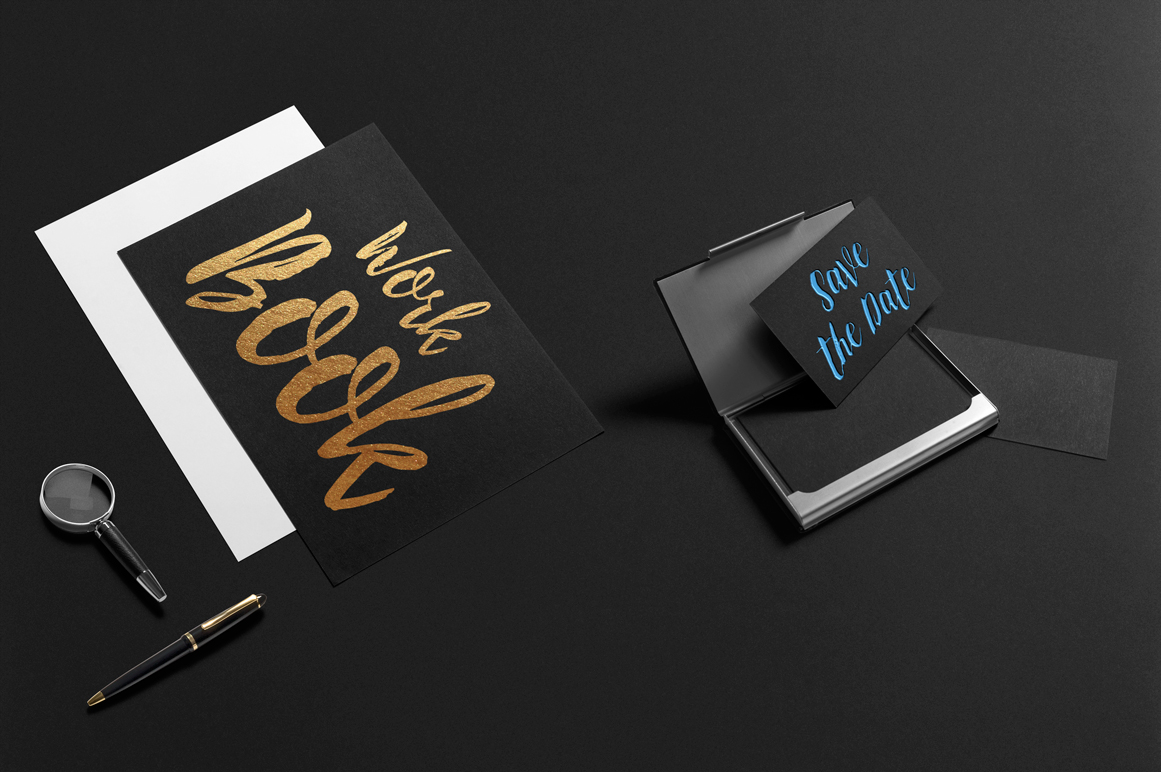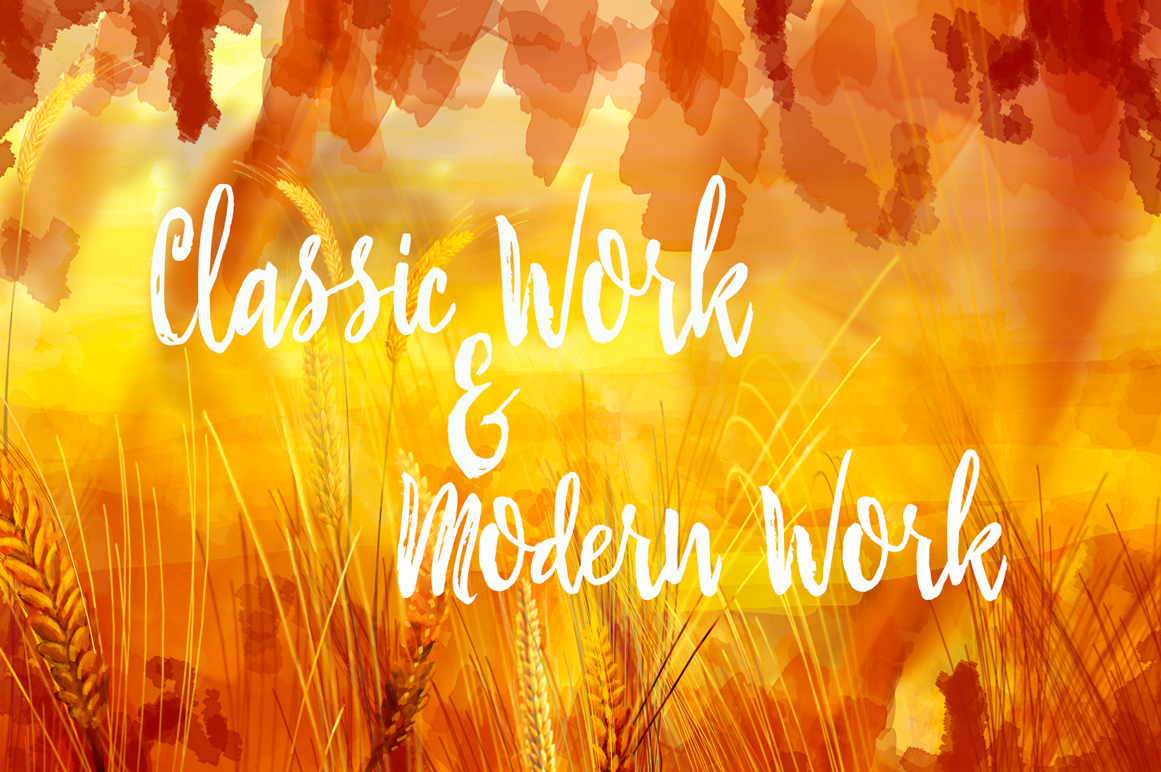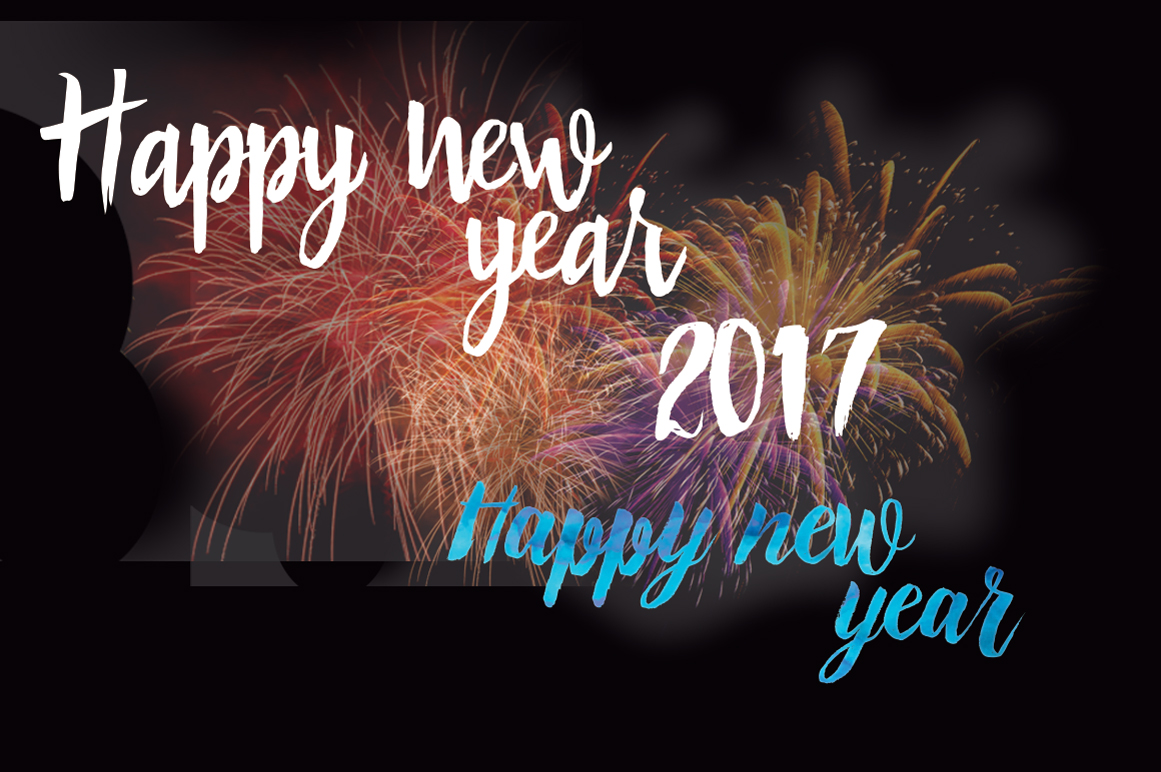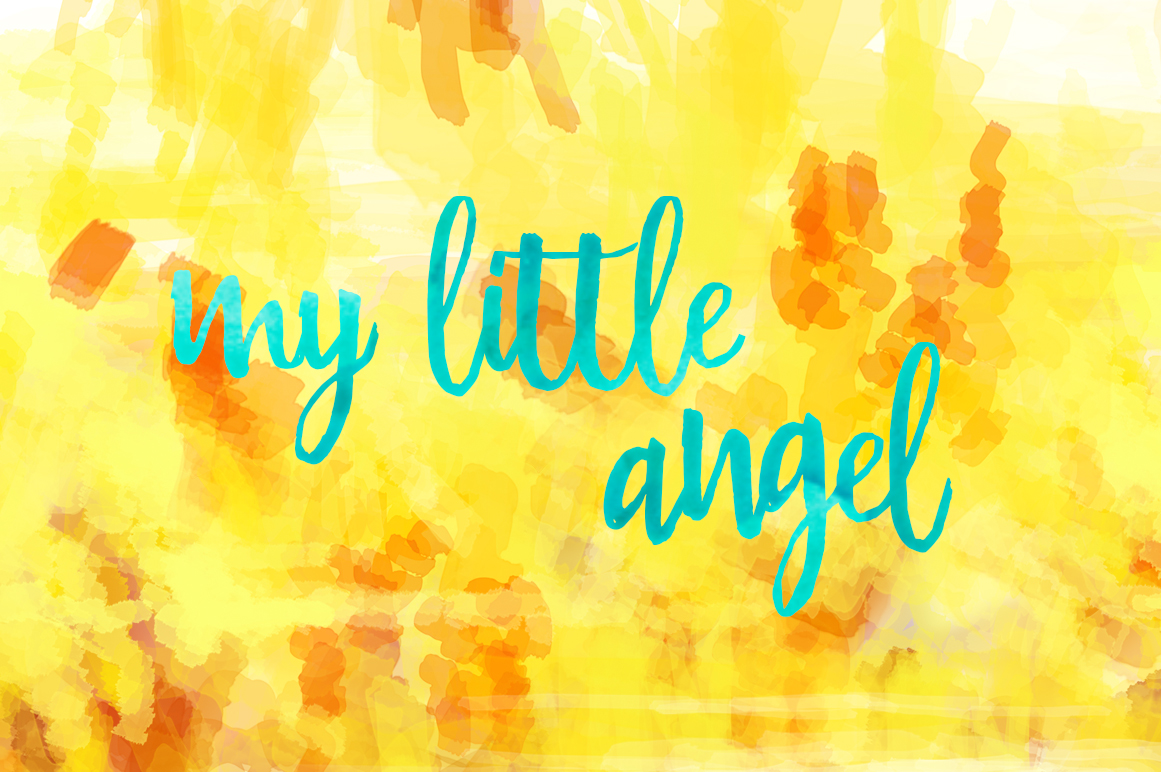
Discover the Charm of Brambles Font: A Beautiful Font Duo for Designers and Crafters
Are you tired of using the same old fonts in your designs? Look no further! Brambles Font is a stunning font duo that is sure to add a touch of elegance and whimsy to your projects. Consisting of two complementary fonts, Brambles and Steellia, this font duo is perfect for designers and crafters looking to add some personality to their work.
What is Brambles Font?
Brambles Font is a carefully crafted font duo that combines the charm of handwritten script with the sophistication of a modern sans-serif font. The duo consists of two fonts: Brambles, a beautiful handwritten script font, and Steellia, a clean and modern sans-serif font.
Brambles: The Handwritten Script Font
Brambles is a gorgeous handwritten script font that is perfect for adding a personal touch to your designs. With its flowing curves and elegant lines, Brambles is ideal for use in projects where you want to add a touch of sophistication and whimsy. Whether you’re designing a wedding invitation, a branding project, or a social media graphic, Brambles is sure to make your design stand out.
Steellia: The Modern Sans-Serif Font
Steellia is a clean and modern sans-serif font that is perfect for use in projects where you need a font that is both elegant and versatile. With its sleek lines and sophisticated curves, Steellia is ideal for use in headings, titles, and body text. Whether you’re designing a website, a brochure, or a business card, Steellia is sure to make a great impression.
Why Choose Brambles Font?
So why choose Brambles Font for your next design project? Here are just a few reasons why:
- Unique and Versatile: Brambles Font is a unique and versatile font duo that can be used in a wide range of design projects, from wedding invitations to branding and social media graphics.
- Elegant and Whimsical: With its elegant lines and whimsical curves, Brambles Font is perfect for designers and crafters looking to add a touch of personality to their work.
- Easy to Read: Both Brambles and Steellia are easy to read, making them perfect for use in body text and headings.
- High-Quality: Brambles Font is a high-quality font duo that is designed to deliver exceptional results in your designs.
How to Use Brambles Font
Using Brambles Font in your designs is easy! Here are a few tips to get you started:
- Pair Brambles and Steellia: For a stunning effect, pair Brambles and Steellia together in your design. Use Brambles for headings and titles, and Steellia for body text.
- Use Brambles for Headings: Use Brambles for headings and titles to add a touch of elegance and whimsy to your design.
- Use Steellia for Body Text: Use Steellia for body text to add a touch of sophistication and versatility to your design.
In conclusion, Brambles Font is a beautiful font duo that is perfect for designers and crafters looking to add a touch of elegance and whimsy to their work. With its unique and versatile design, Brambles Font is sure to make your designs stand out from the crowd. So why wait? Download Brambles Font today and start creating stunning designs that will leave a lasting impression!